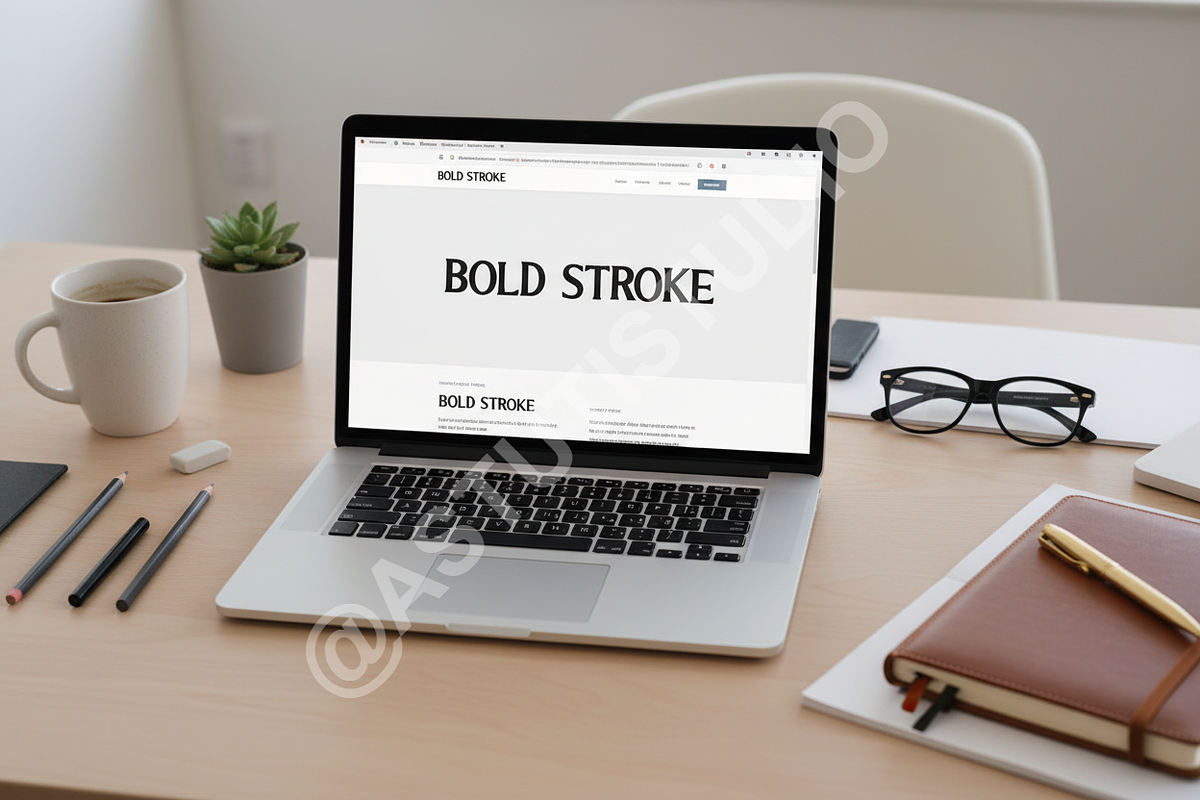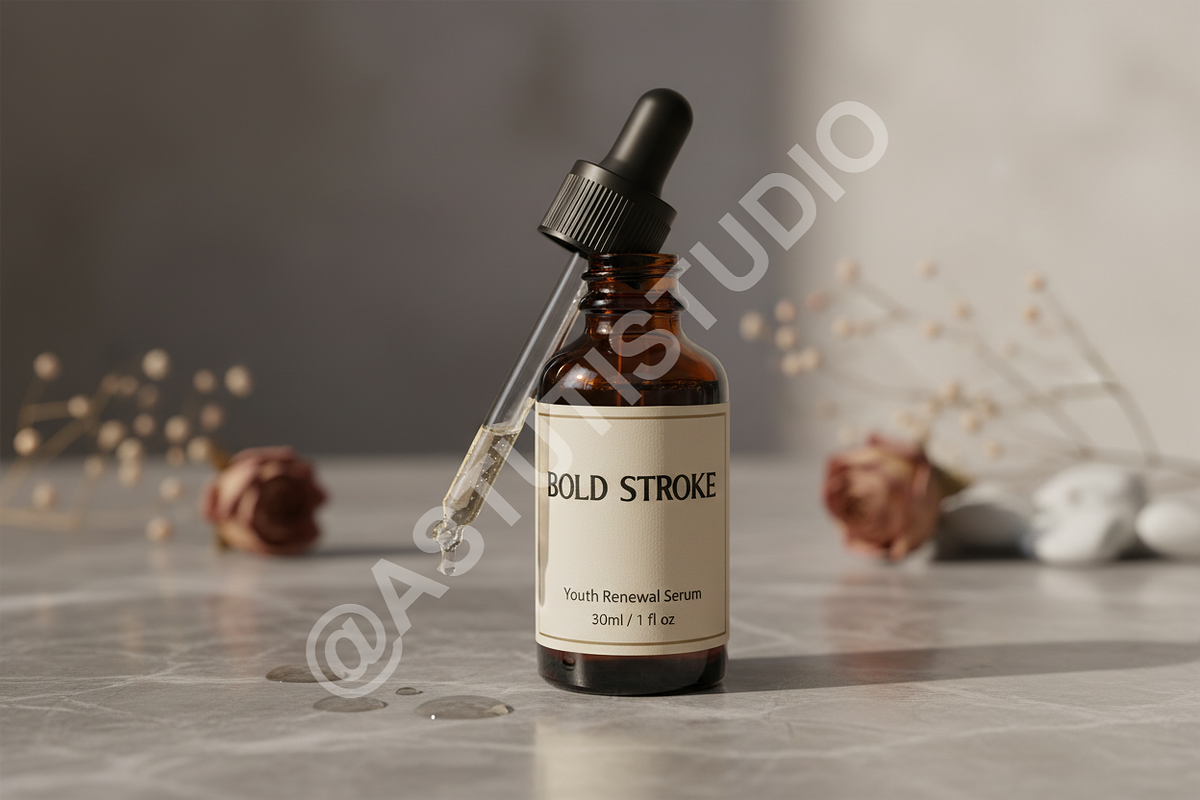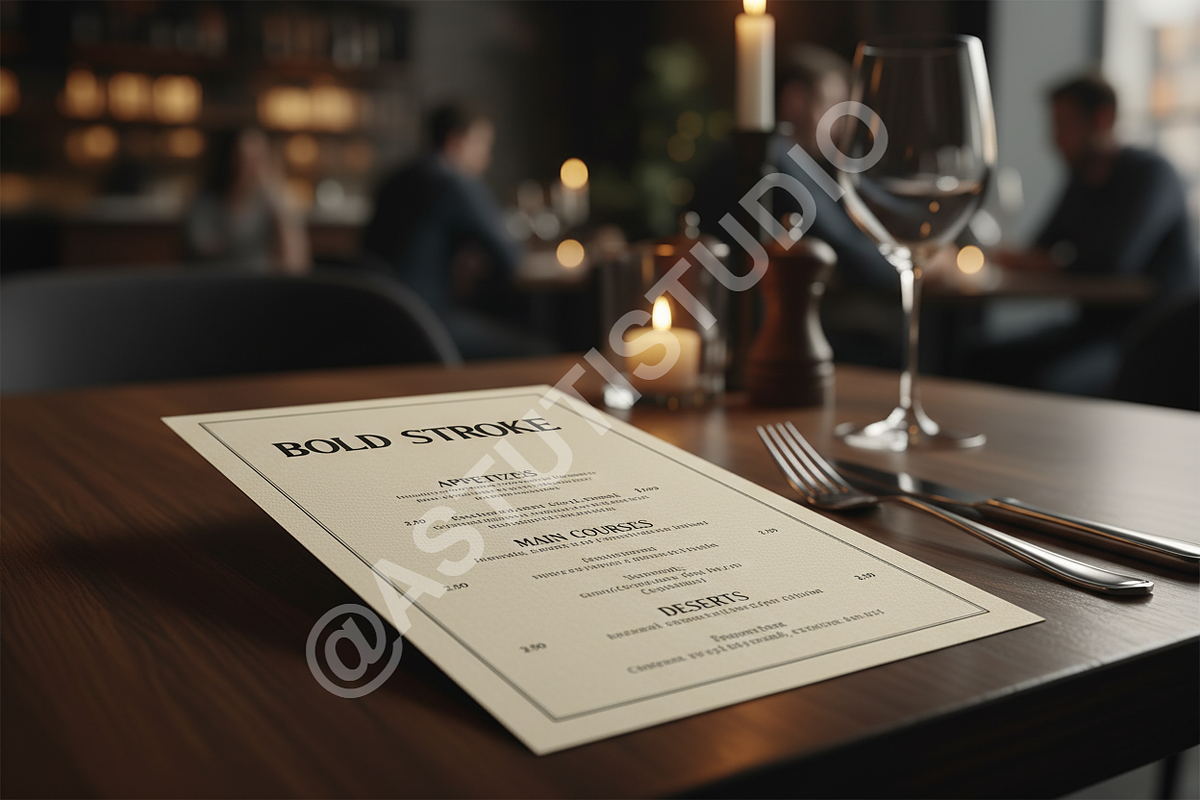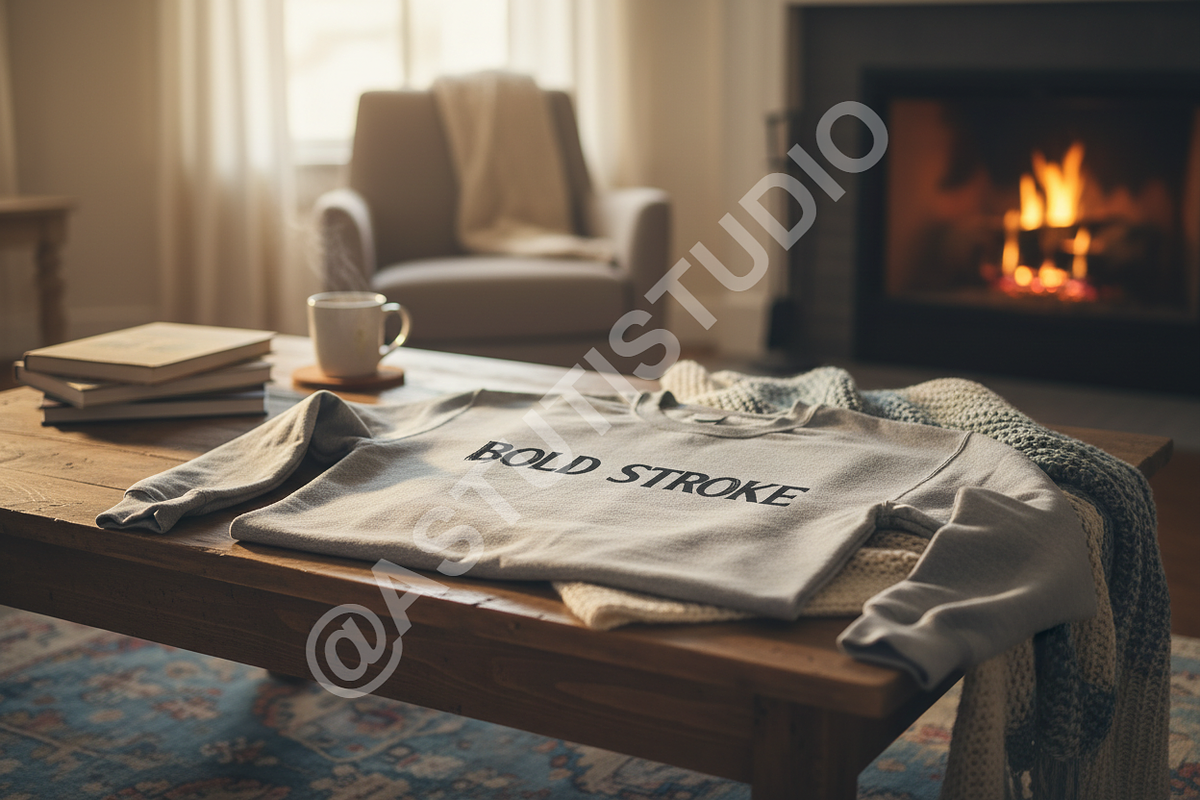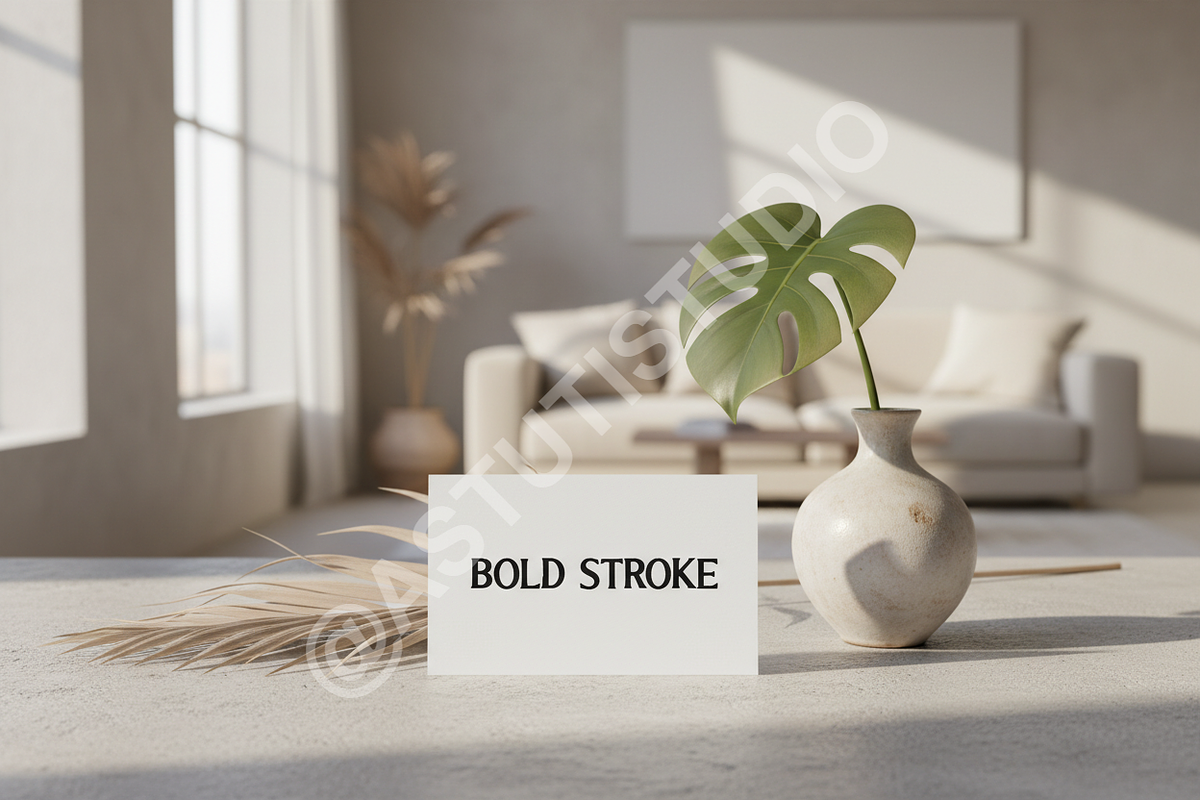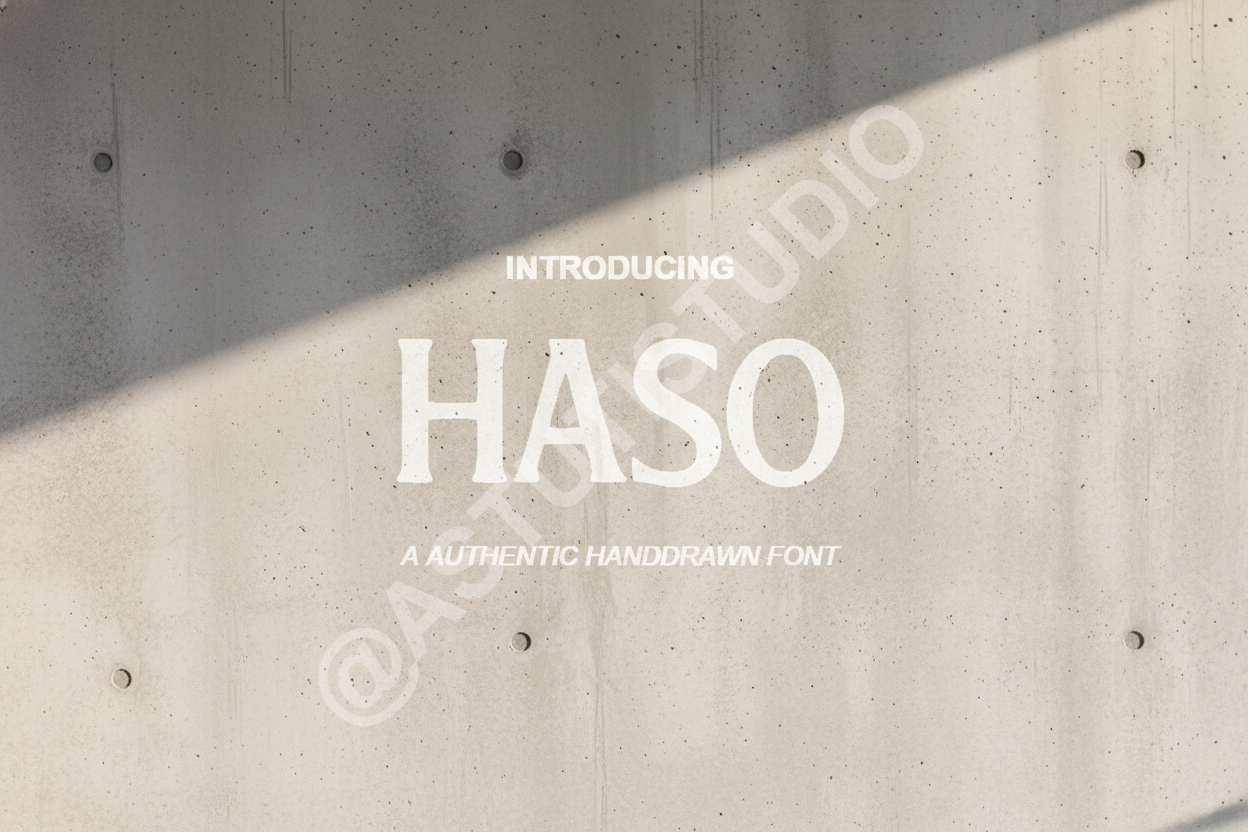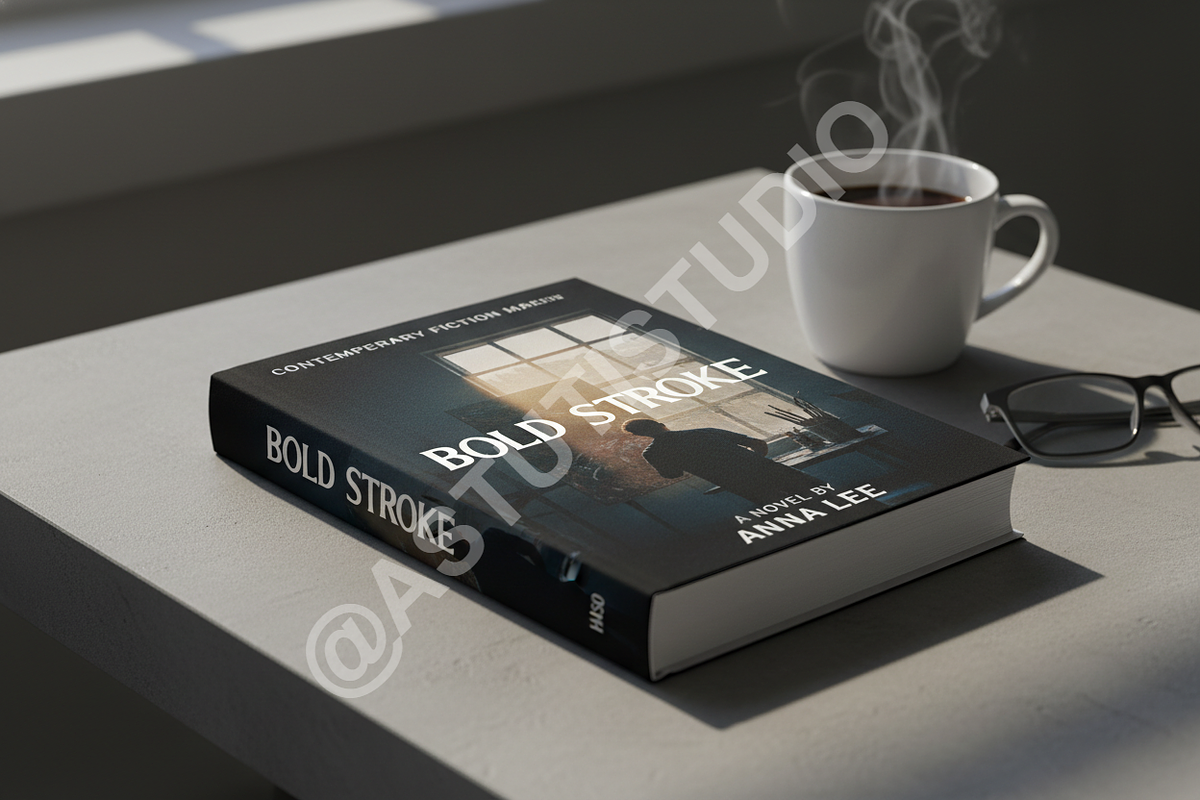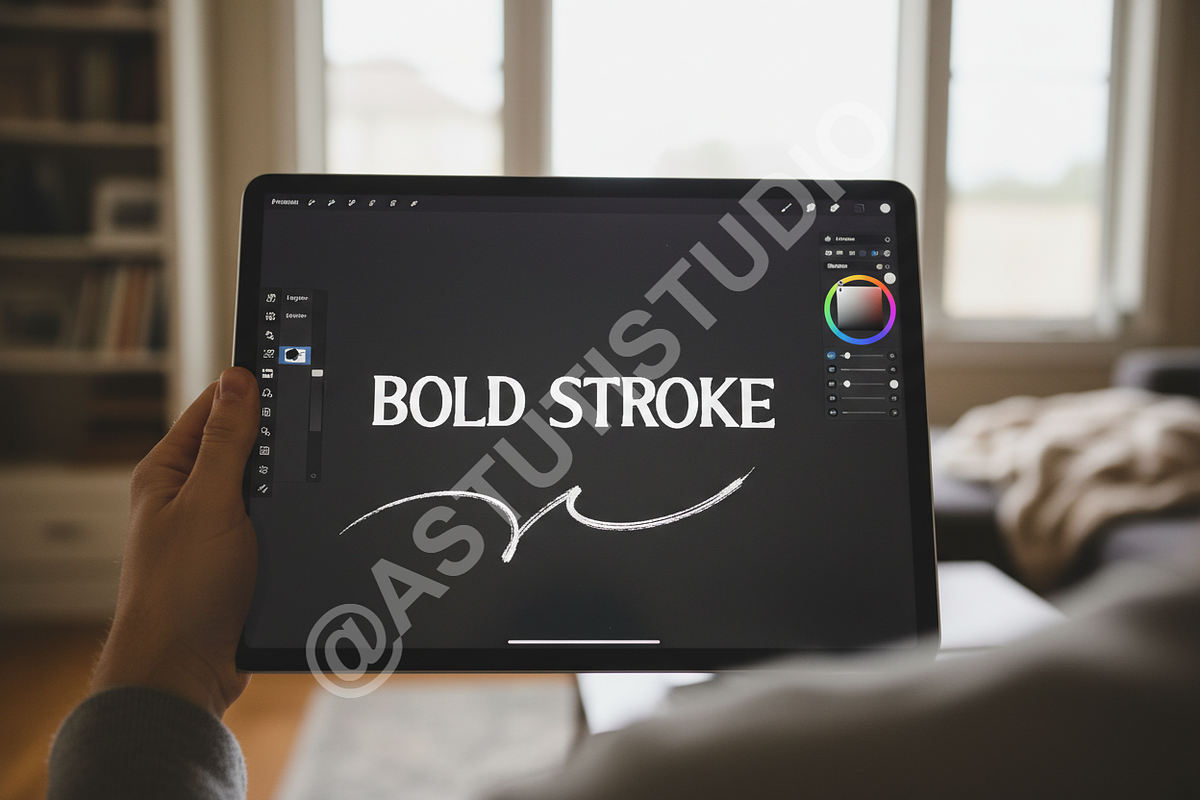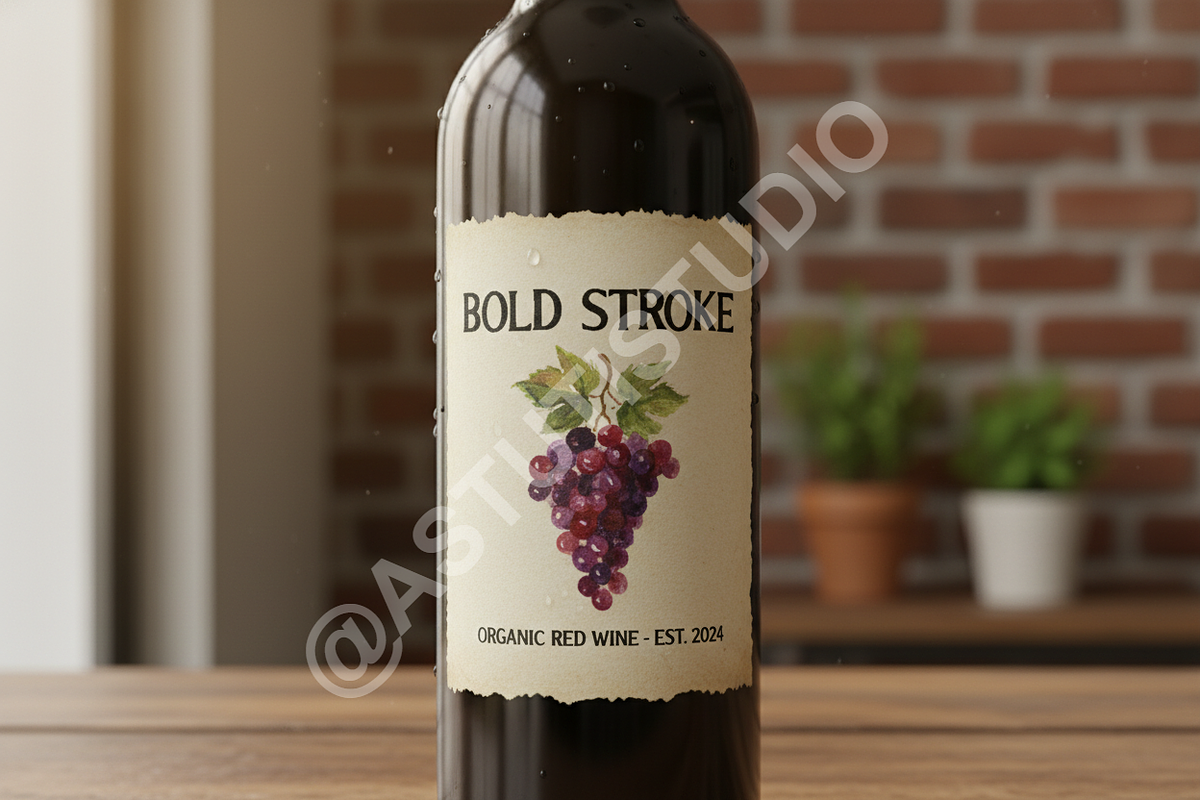
Haso | Modern Elegant Serif Typeface
INTRODUCTION Haso is a sophisticated serif typeface meticulously crafted for high-end visual identities. Inspired by modern minimalism and classic editorial aesthetics, Haso brings an air of quiet luxury to any design project. It is specifically optimized for fashion branding, premium packaging, and refined social media content.
- Elegant high-contrast strokes
- Unique custom ligatures for a bespoke look
- Comprehensive multilingual support
- Precise kerning for professional typography
- Optimized for both display and editorial body text